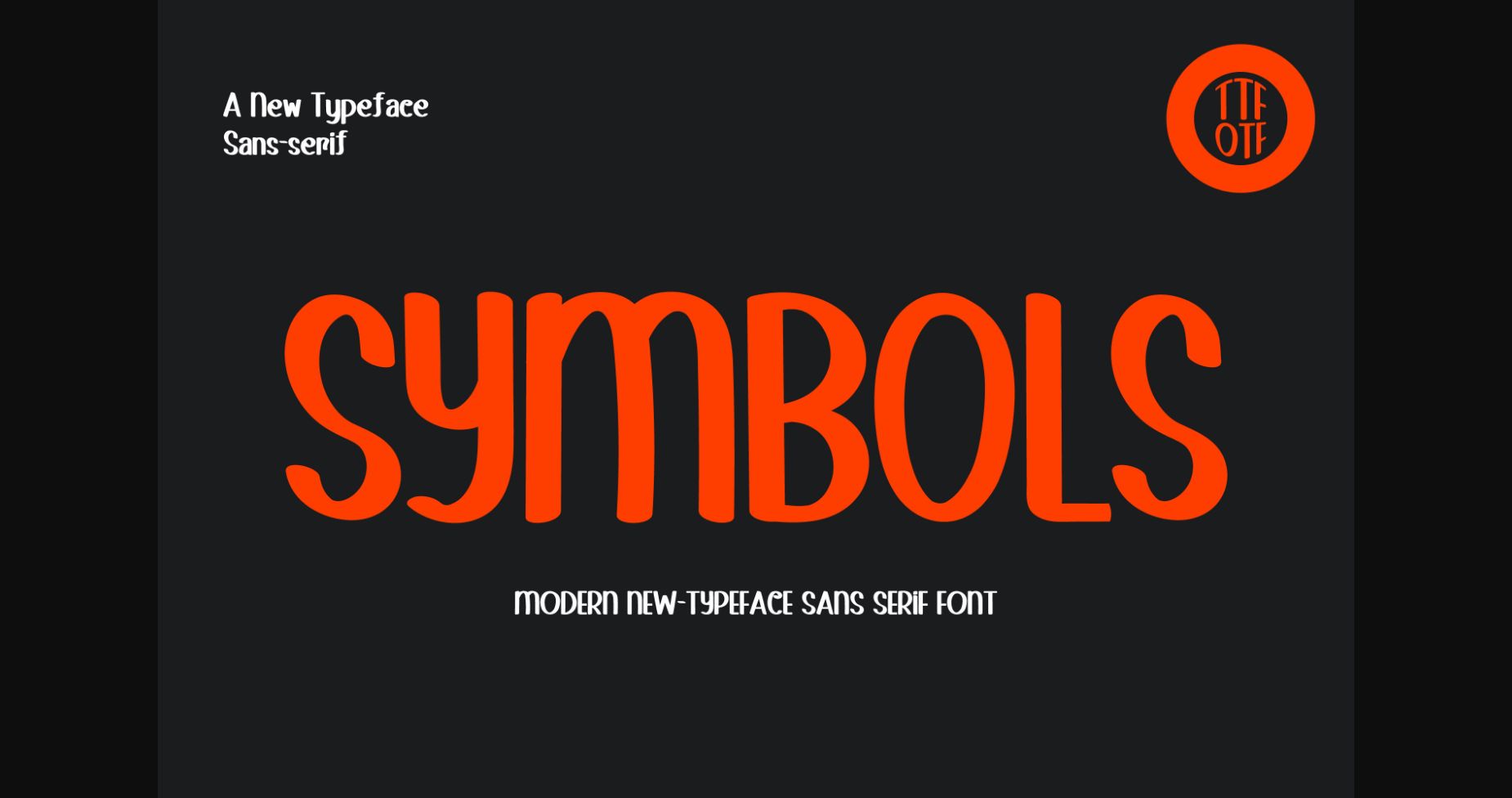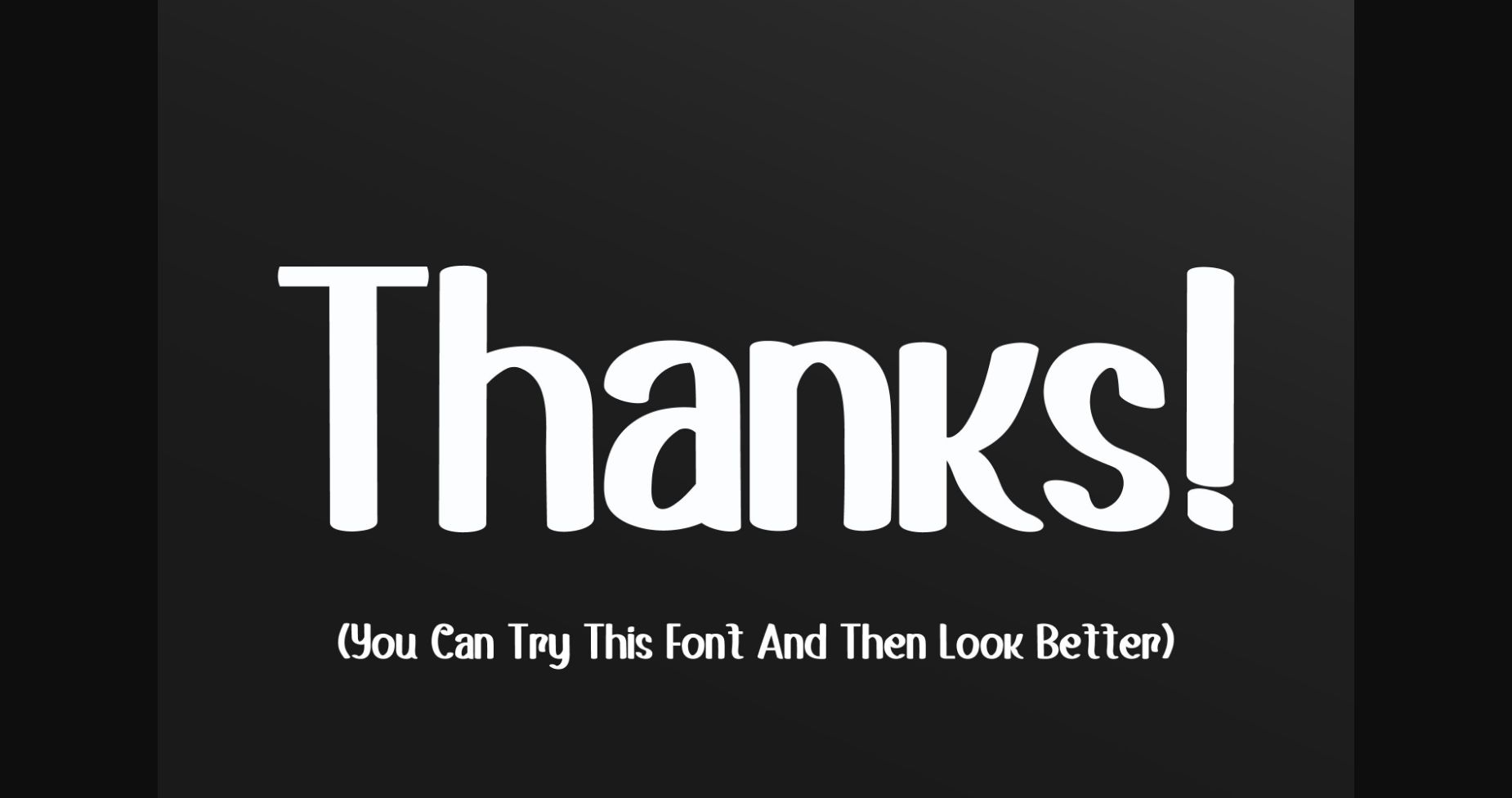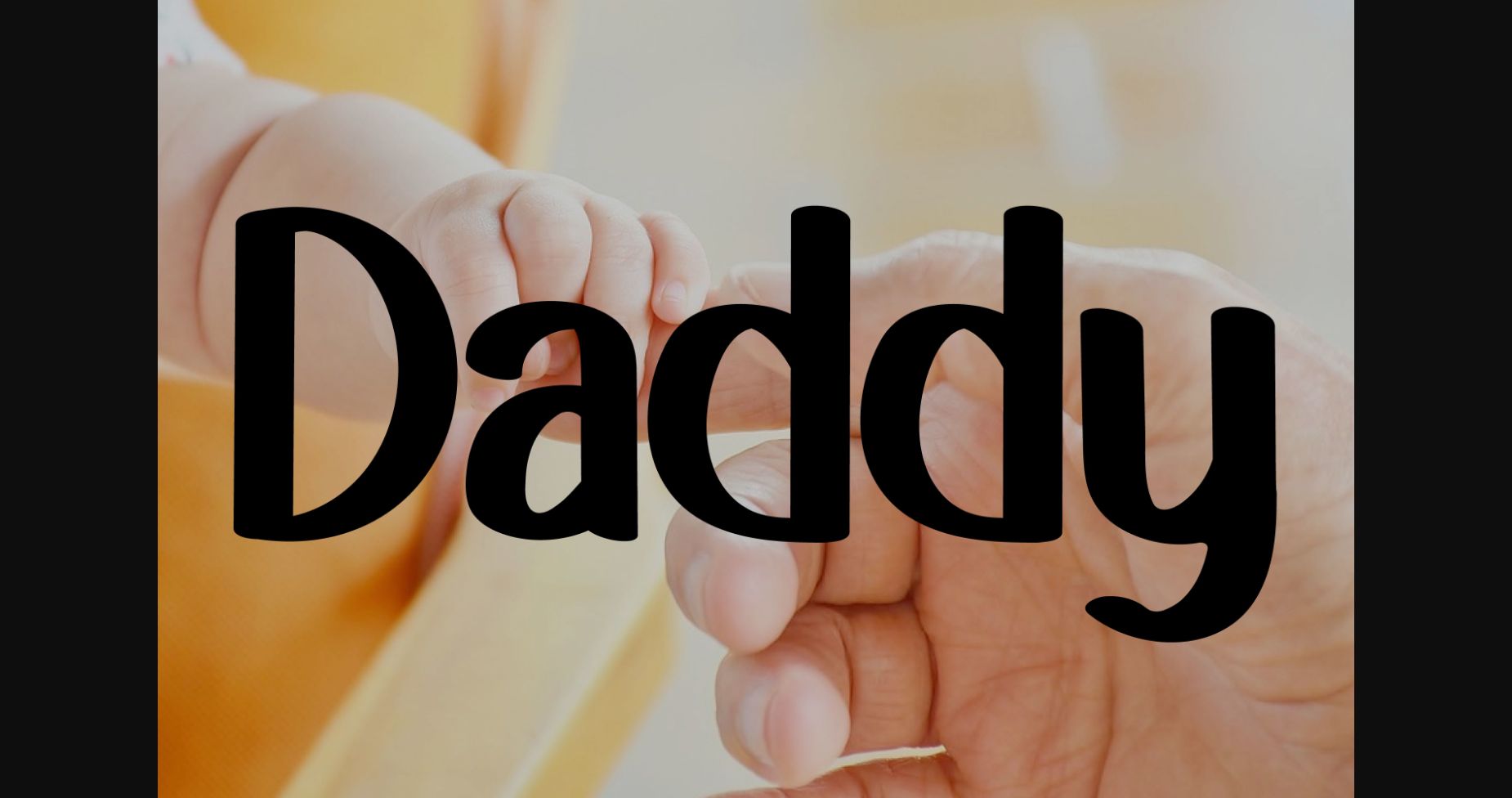
About Symbols Font
Symbols is a fun and quirky all-caps serif font. Add it to your crafty ideas, and enjoy the results! It will look great -on cards, promotional ads, social media posts, product packaging, and others.